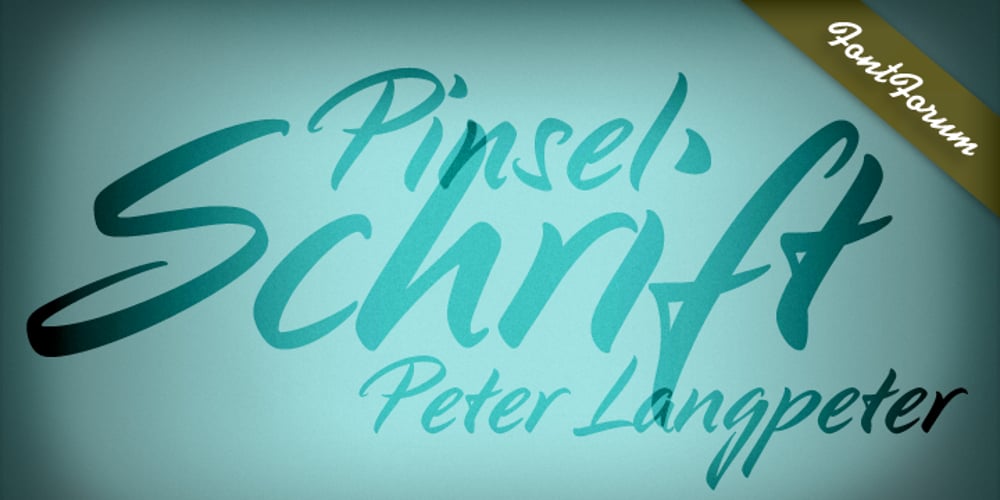
Pinselschrift Font Family was designed by Peter Langpeter and published by URW Type Foundry. Pinselschrift contains 1 styles and family package options. LP Pinselschrift is a new brush handwriting script from German designer Peter Langpeter (lp-design.de). LP has been running his own design studio since 1995, working as a typeface and logo designer, as a calligrapher, cartographer and illustrator. During this time LP created a large number of excellent new typeface designs. Now, we are extremely happy that LP has chosen to let URW digitally produce and market his designs. LP Pinselschrift is the first LP original typeface of this series. It is a light, dynamic-flowing and modern brush script.